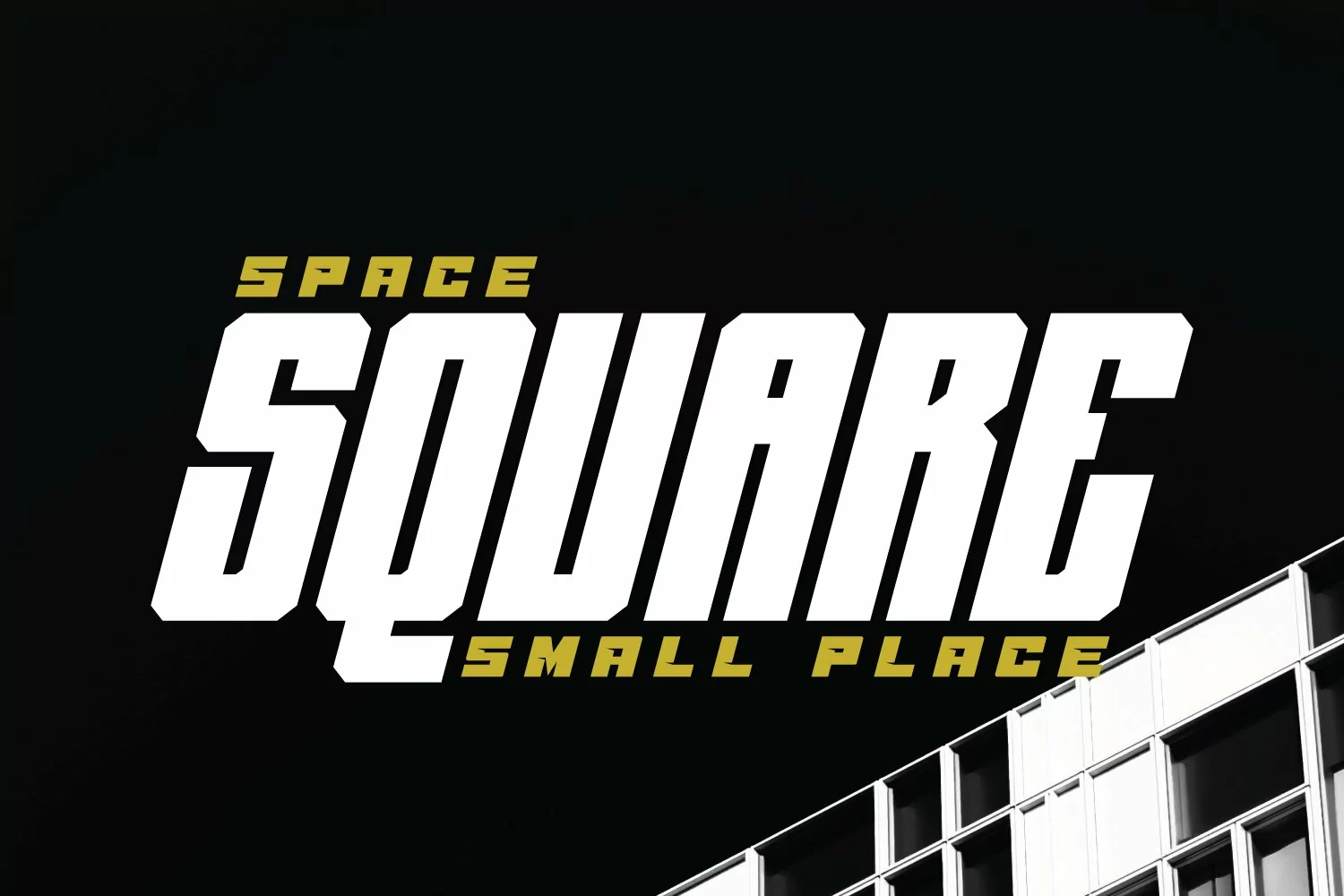
AJ Signal is an oblique style condensed font, and in a very different style from the others.
Its weight excels in posters, social media, headlines, magazine titles, clothing, large print formats - and anywhere else you want it to be seen.
Inspired by design styles that are popular today, and this is the answer to all the needs of every idea that you will pour in this modern era.